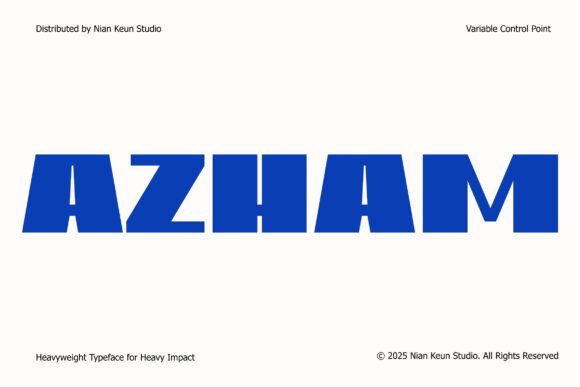
The Power of Azham Font: A Designer’s Best Friend
I still remember the frustration of working on a project, hours spent perfecting every detail, only to realize that the font I chose just wasn’t cutting it. The client wanted something bold, attention-grabbing, and professional. I was on a tight deadline, and my usual go-to fonts just weren’t delivering. That’s when I stumbled upon Azham Font, and let me tell you, it was a game-changer! 💥
What Makes Azham Font So Special?
Azham is a heavyweight display font that’s built to command attention. Its bold letterforms and balanced geometric shapes exude strength and clarity, making it an excellent choice for projects that demand a powerful presence. The consistent stroke thickness ensures uniformity, while its all-uppercase format, full set of numbers, punctuation, and multilingual character support provide versatility across languages and applications.
What I Love About Azham Font ✨
• ✅ Bold and attention-grabbing: Azham Font is perfect for making a statement.
• ✅ Versatile: With multilingual character support, you can use Azham Font for projects that require text in different languages.
• ✅ Consistent stroke thickness: The uniformity of Azham Font ensures that your design looks professional and polished.
• ✅ Easy to read: Despite its boldness, Azham Font is surprisingly easy to read, even at smaller sizes.
• ⚠️ Limited to uppercase: While this might not be a deal-breaker for some, it’s worth noting that Azham Font is only available in uppercase.
• ⚠️ Not suitable for body text: Azham Font is a display font, and as such, it’s not ideal for long blocks of text.
The Story Behind Azham Font
Azham Font was designed with the goal of creating a bold and attention-grabbing typeface that’s perfect for display purposes. The designer, inspired by modern architecture and geometric shapes, aimed to create a font that’s both strong and elegant. With its unique blend of boldness and sophistication, Azham Font has become a popular choice among designers and crafters.
Q: What is Azham Font best used for?
A: Azham Font is best used for projects that require a bold and attention-grabbing look, such as logos, posters, product packaging, and signage.
Q: Is Azham Font suitable for body text?
A: No, Azham Font is a display font and is not suitable for long blocks of text. It’s best used for headlines and titles.
Q: Is Azham Font available in different languages?
A: Yes, Azham Font supports multilingual characters, making it a great choice for projects that require text in different languages.